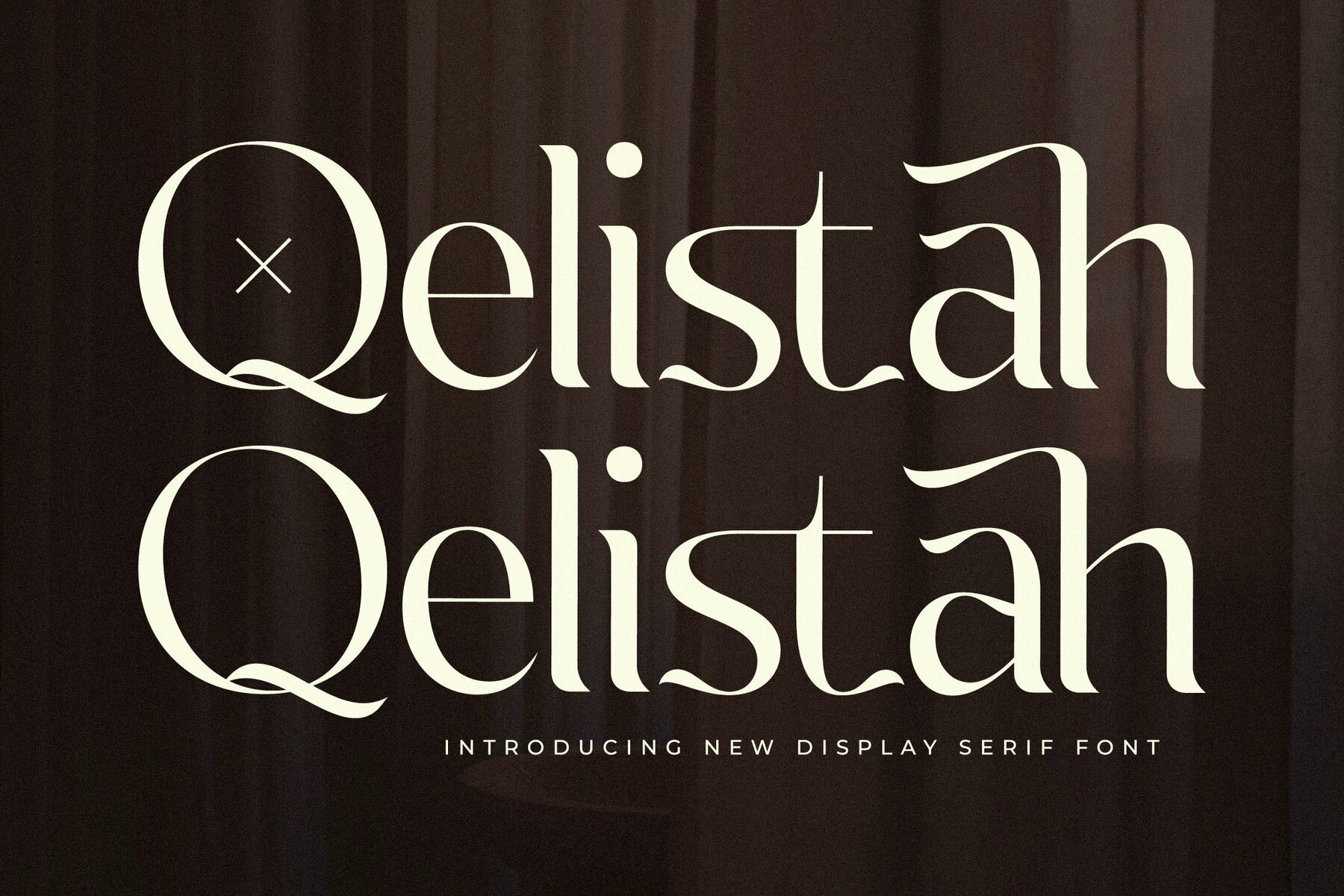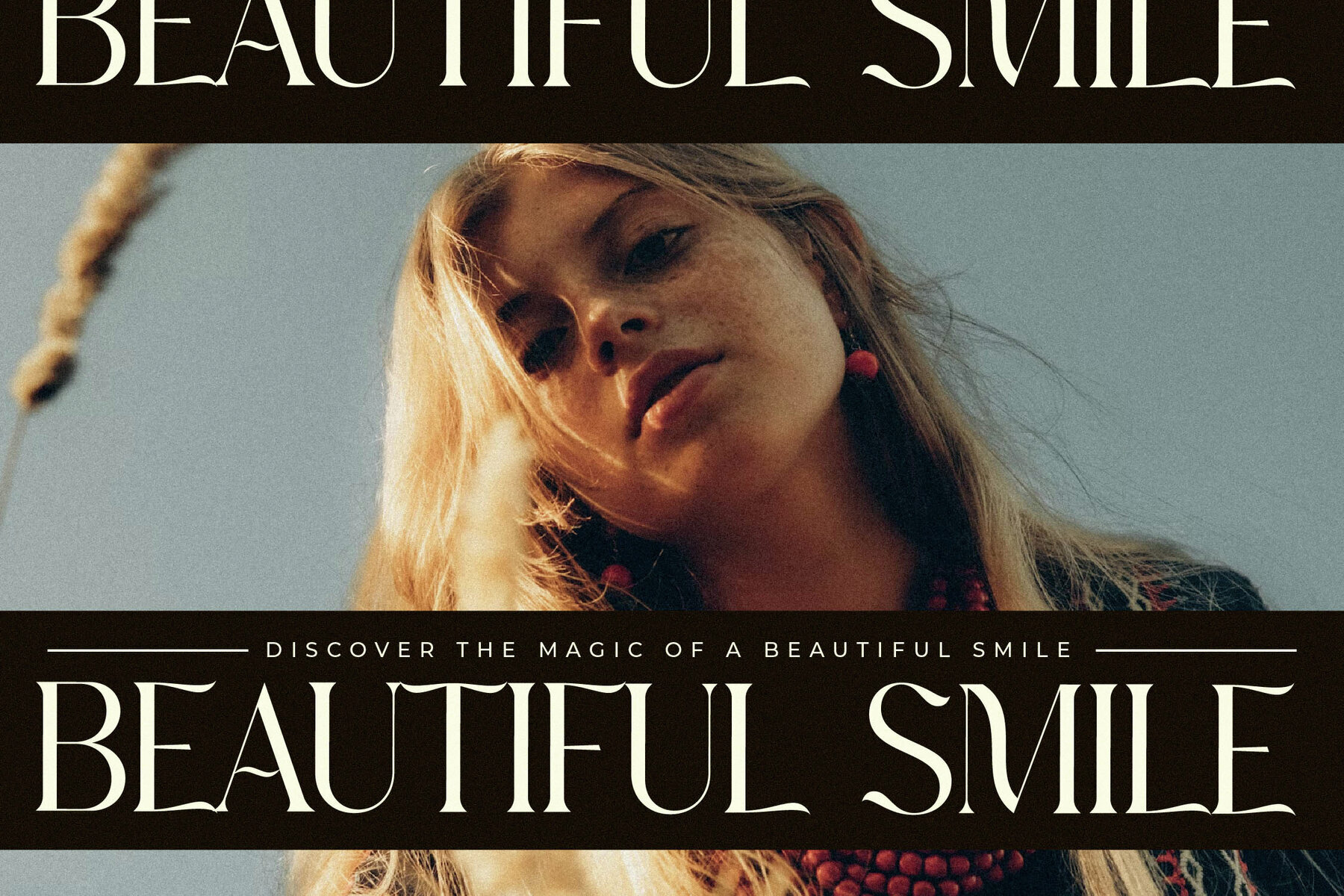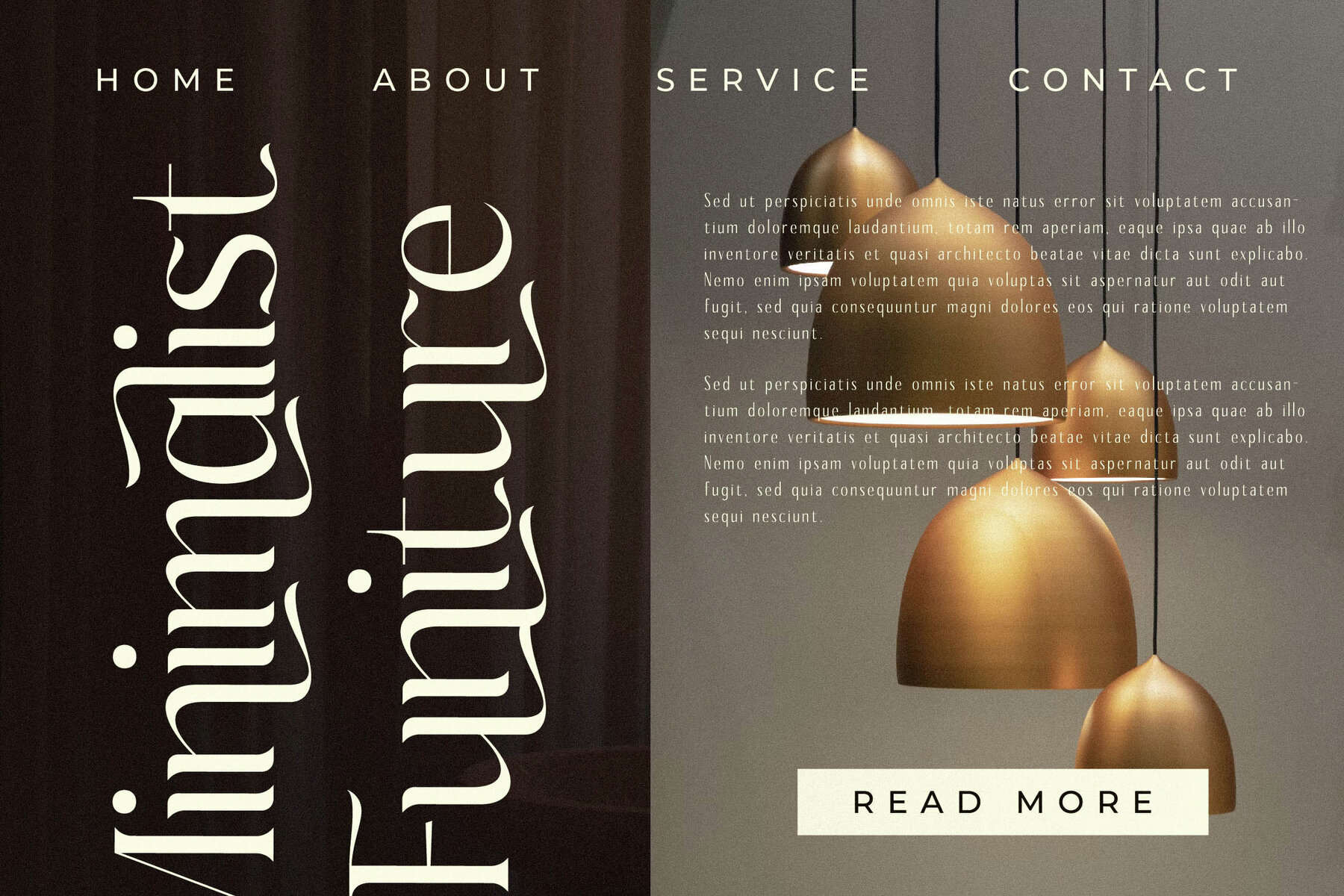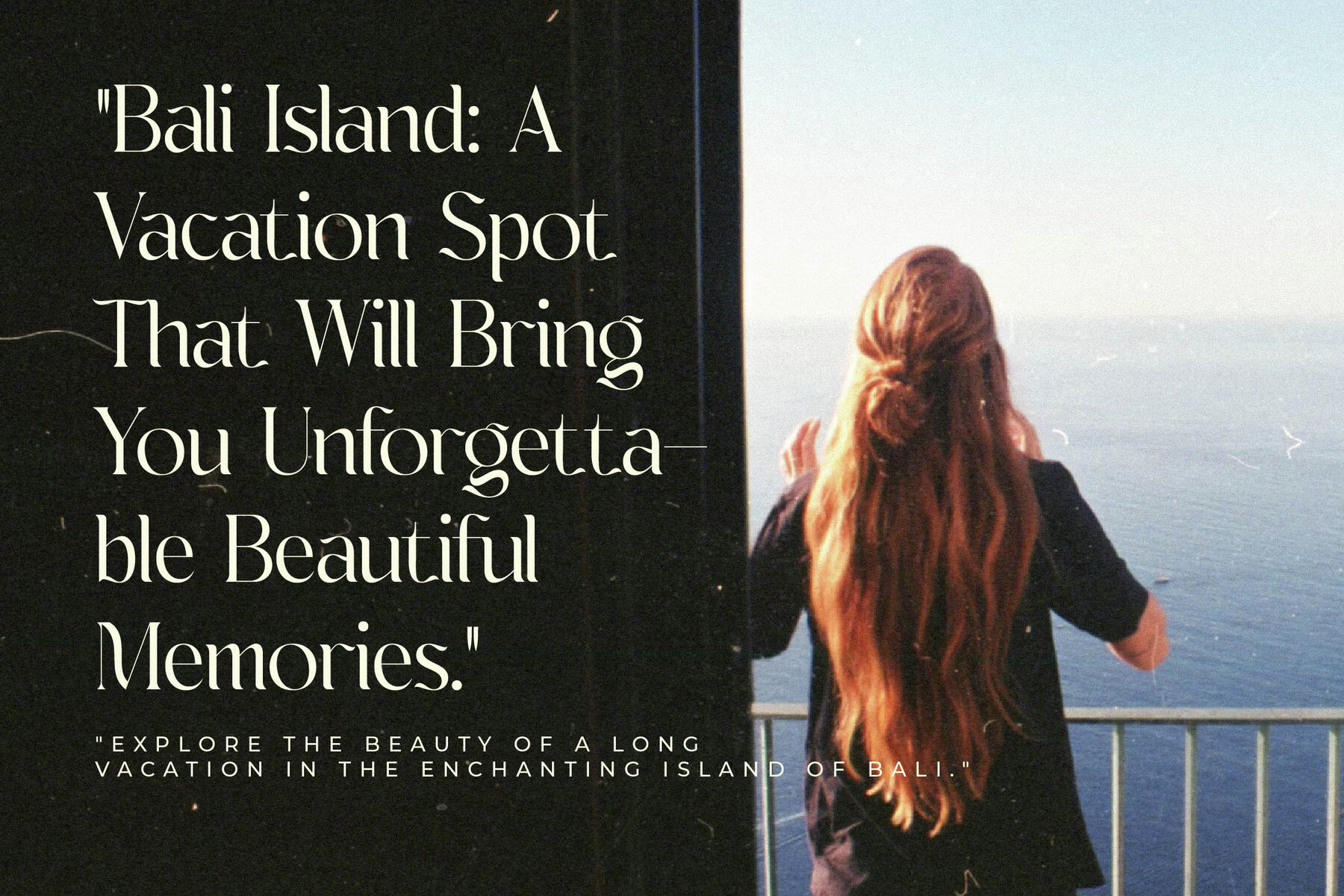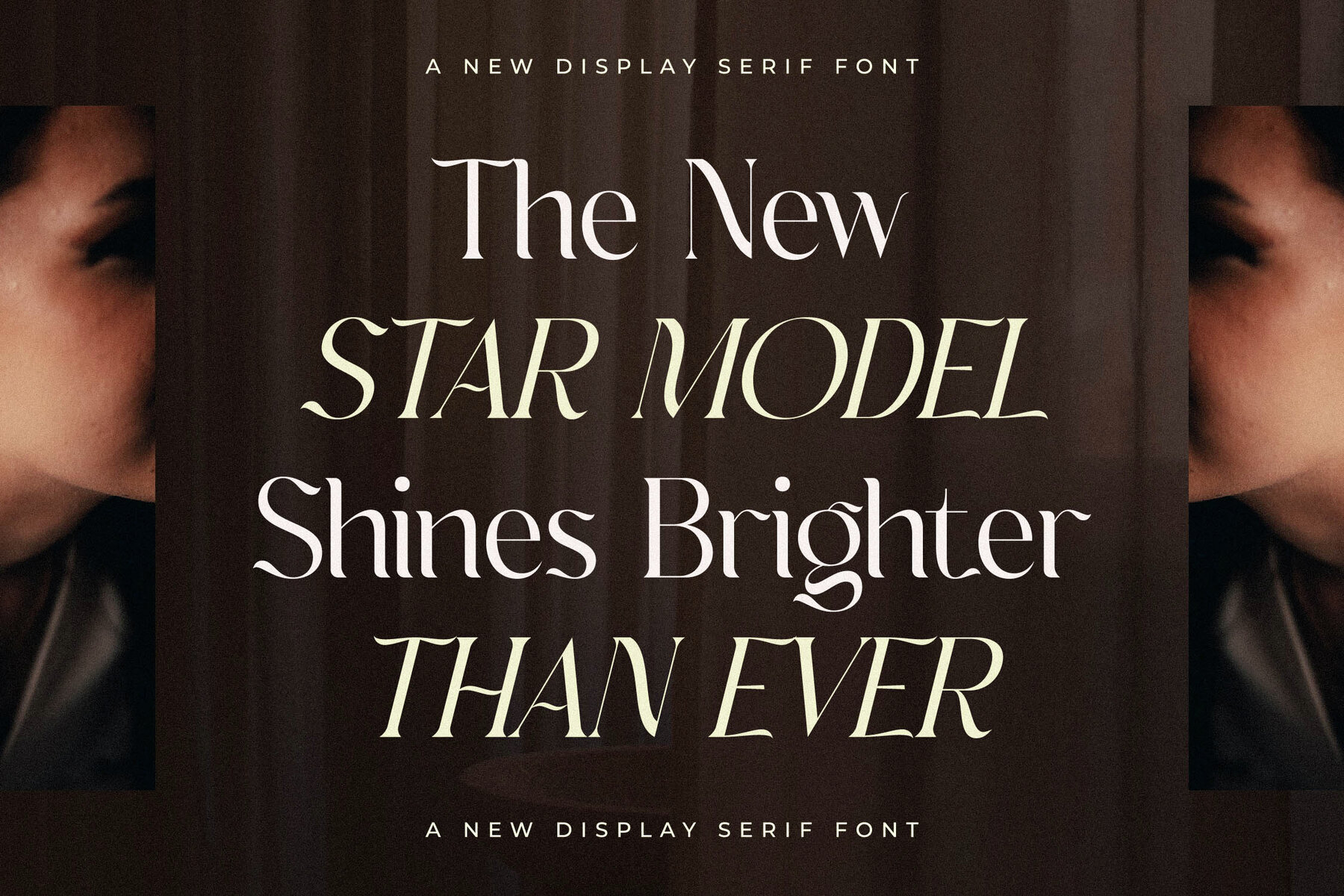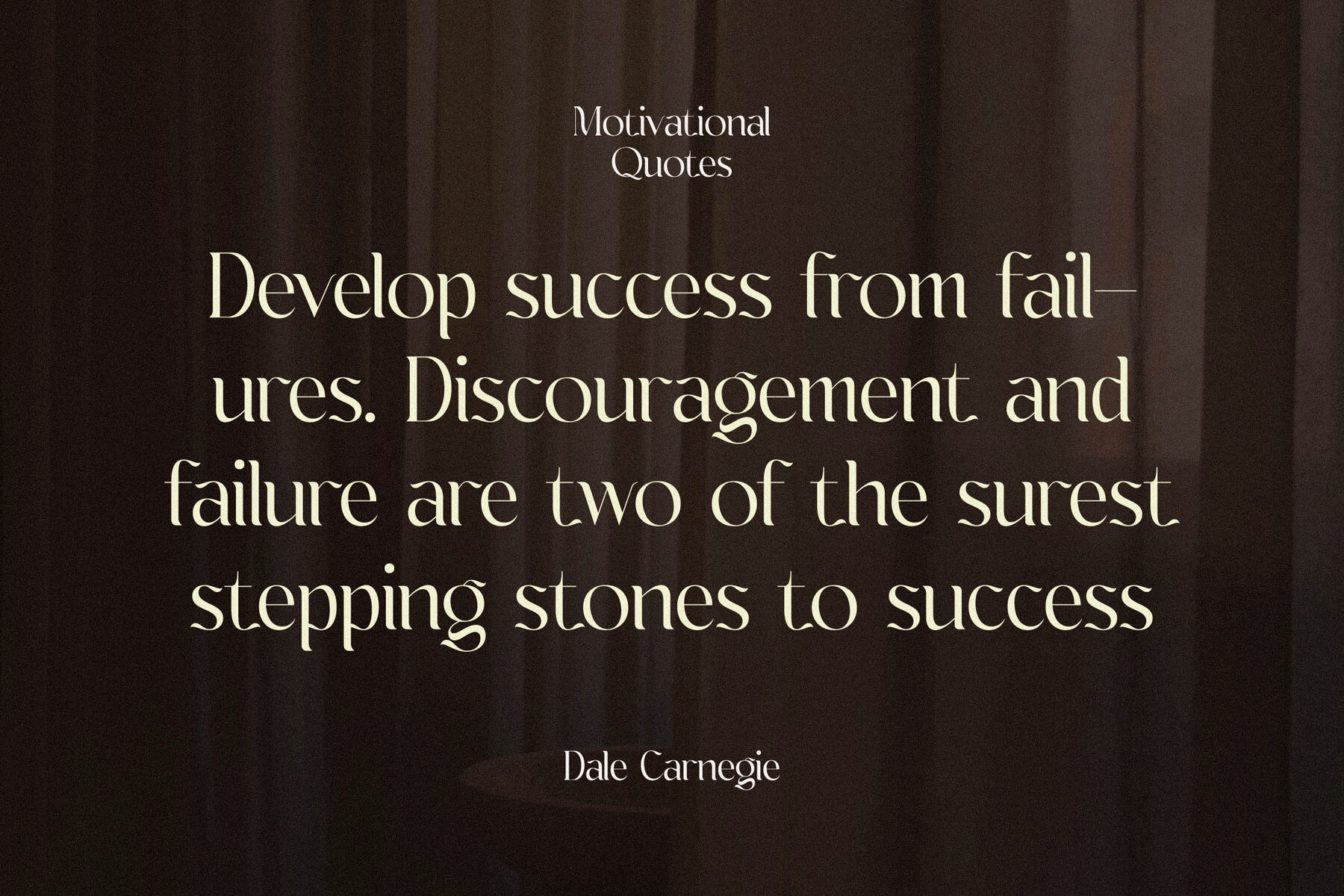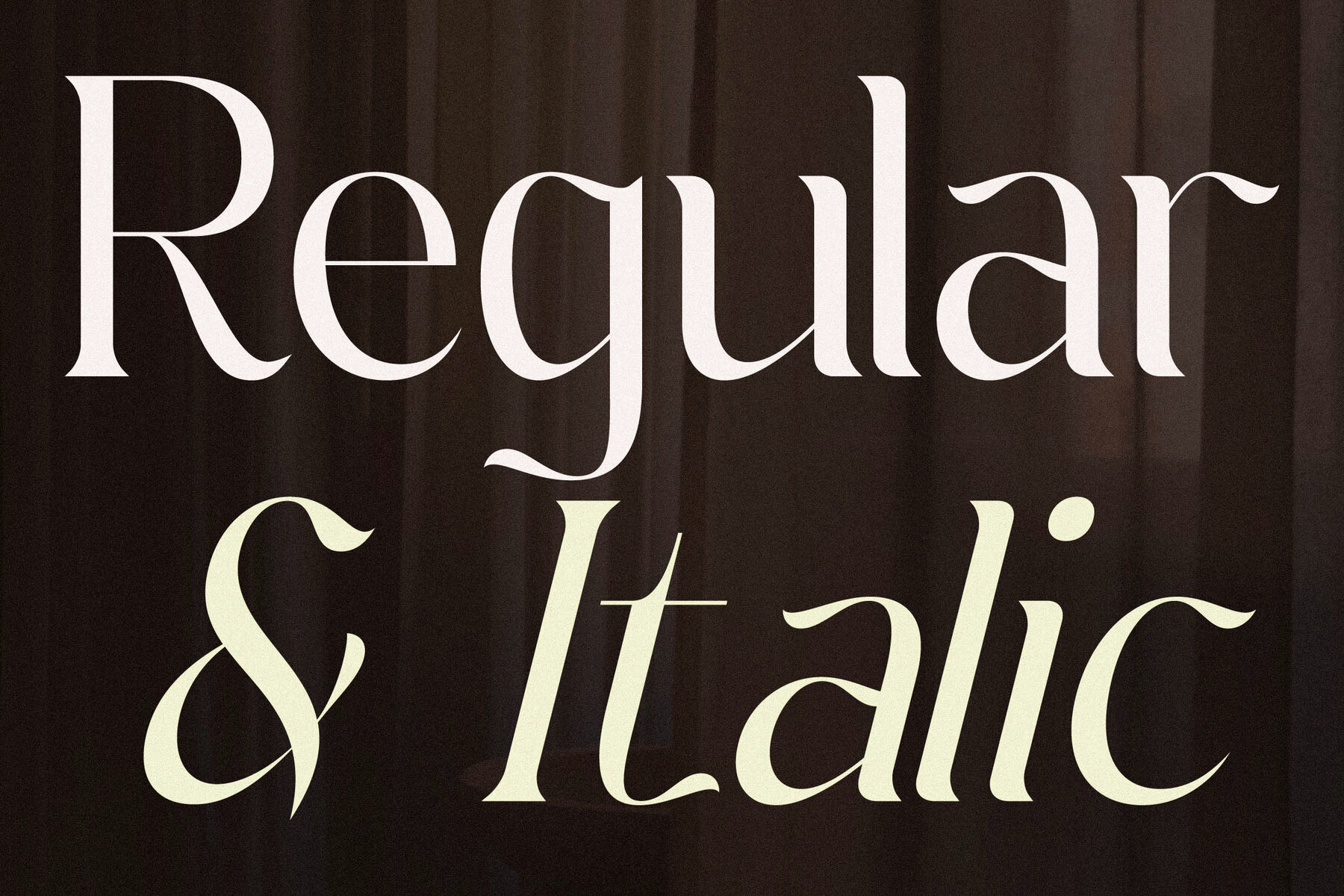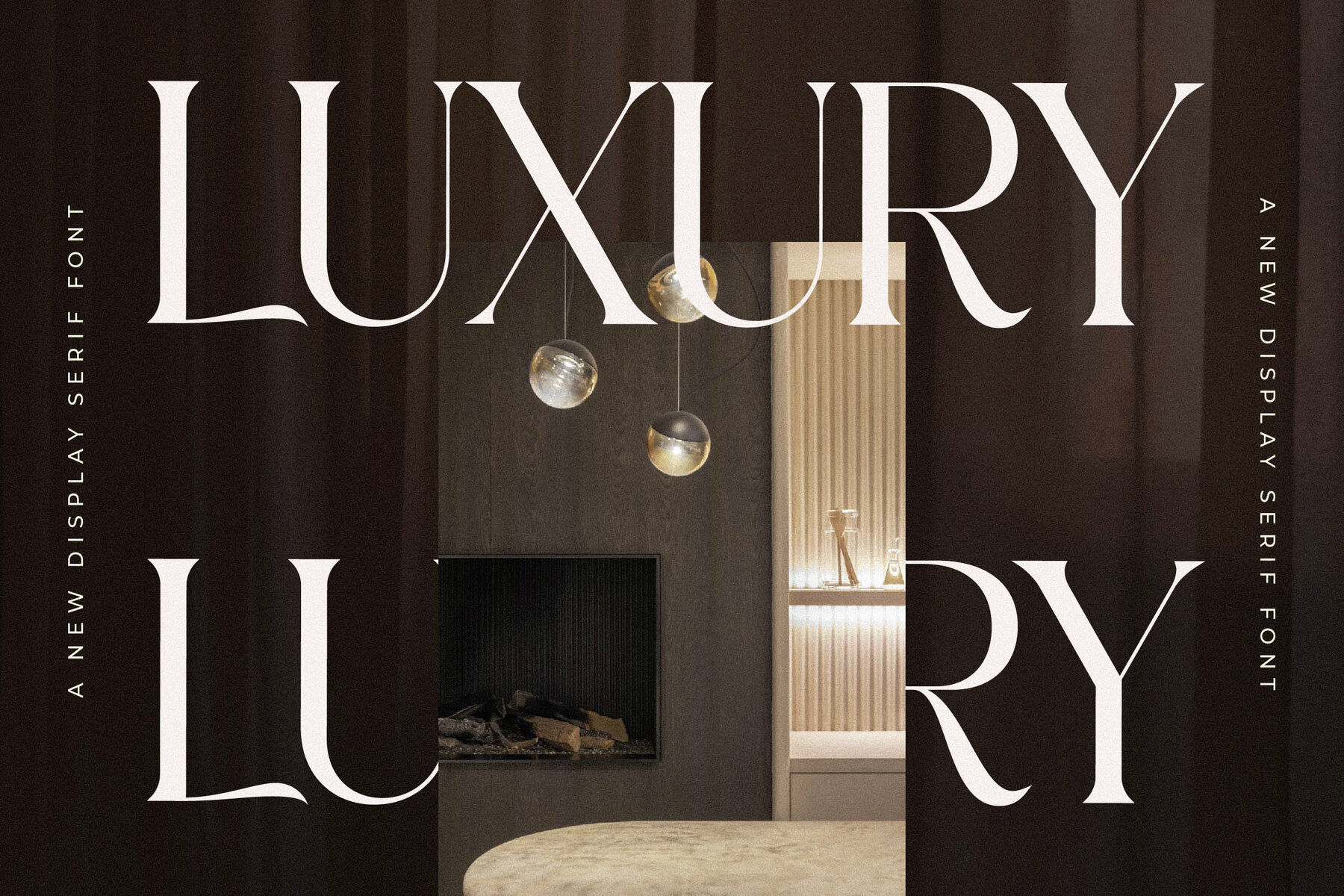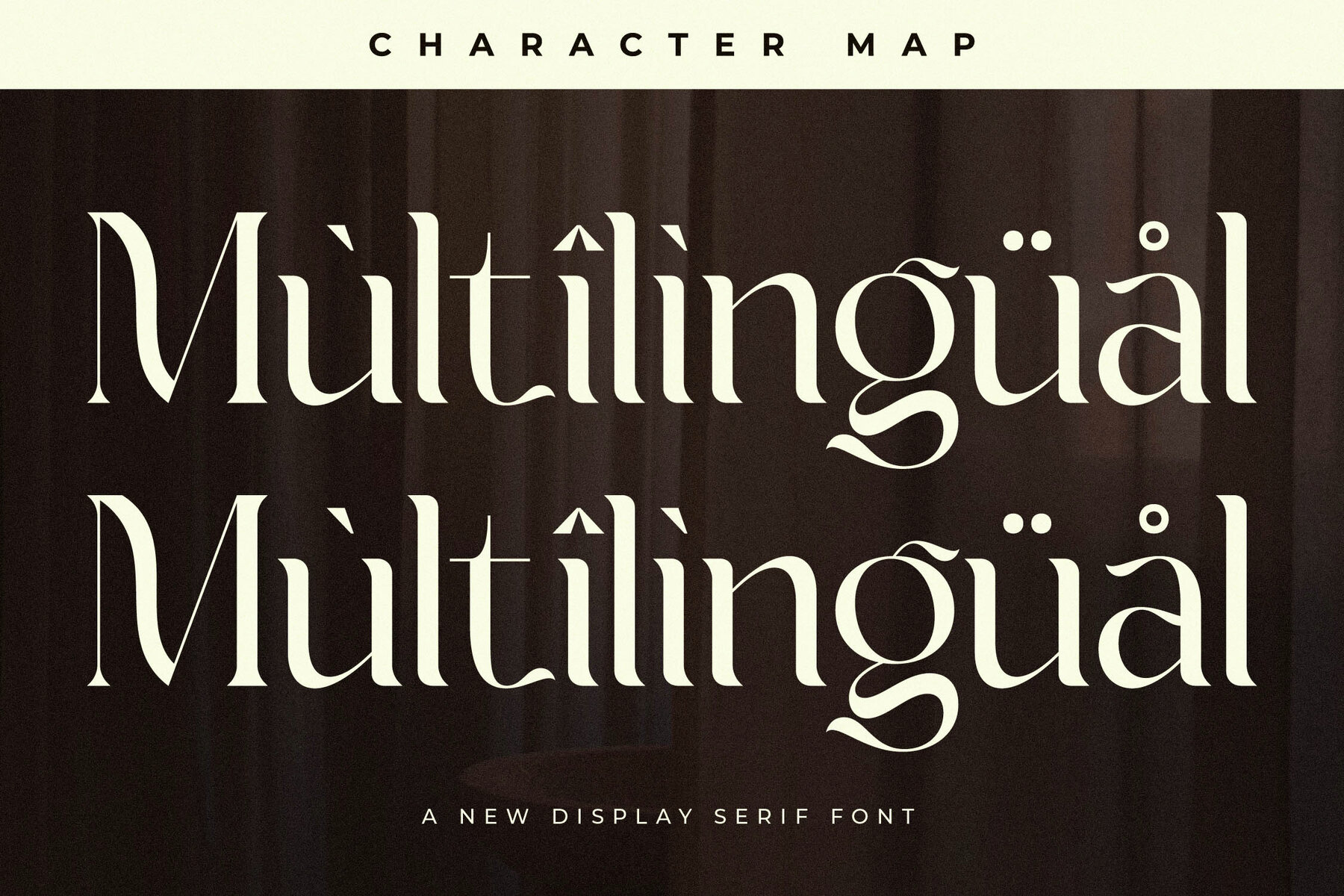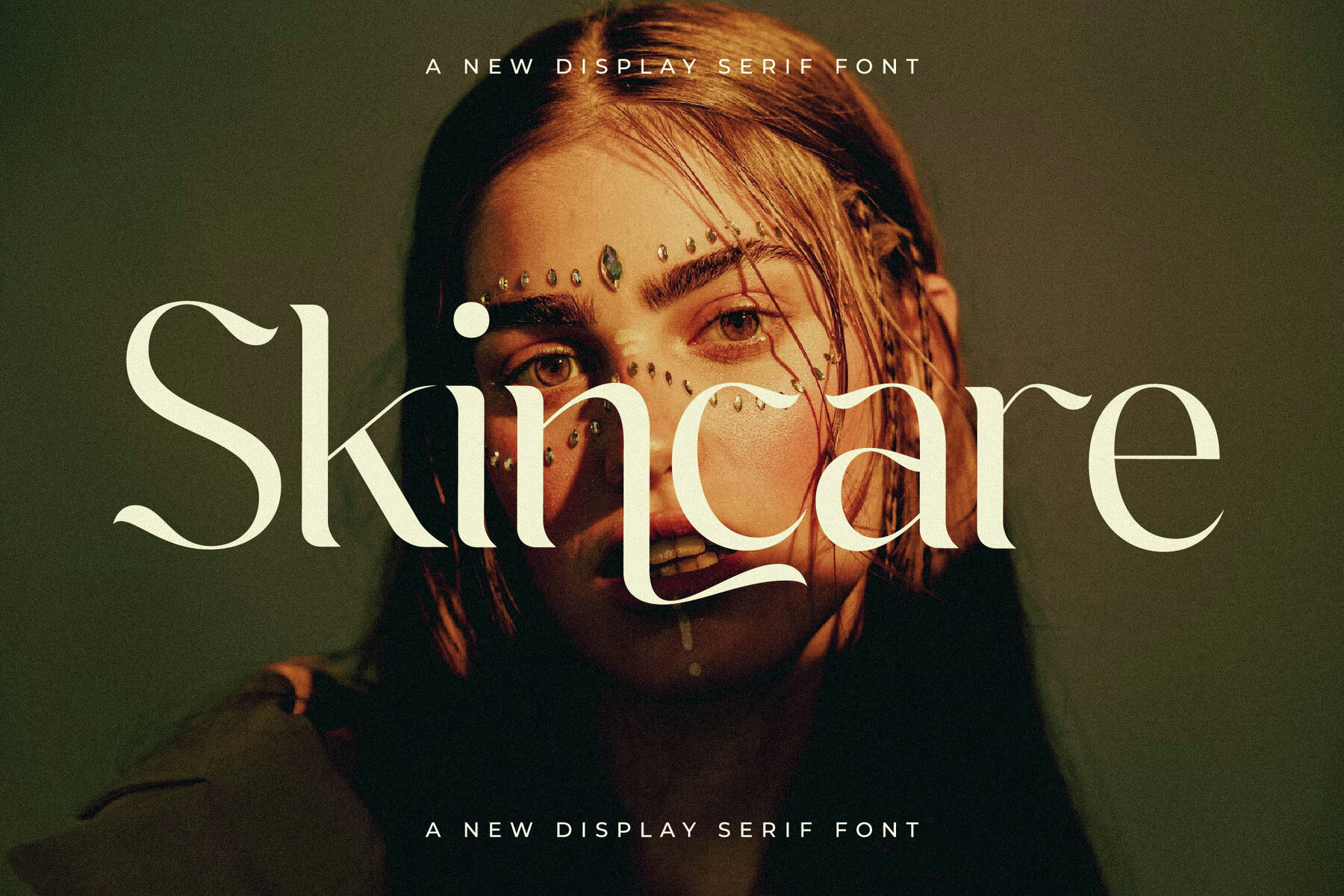
Qelistah Font
Qelistah
Qelistah Italic
Introducing the Qelistah Typeface by Storytype Studio, a masterful blend of modern and classic serif styles that brings a distinct sophistication to your design projects. Whether you're crafting an elegant logo, designing a bold book or movie title, or curating a chic fashion brand, Qelistah offers the perfect fusion of contemporary flair and timeless elegance. Let your designs radiate luxury and style with the Qelistah Typeface, a versatile asset for any graphic designer looking to make a striking impact.Qelistah Typeface: Modern Elegance and Classic Style